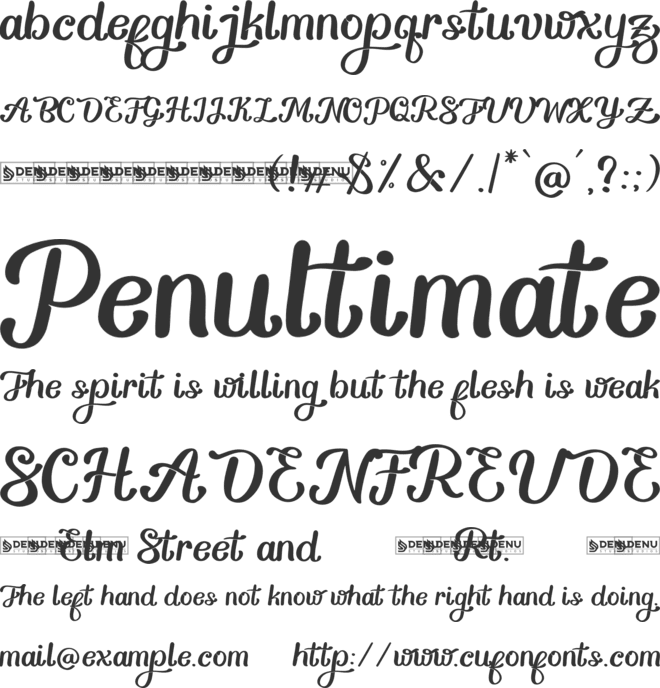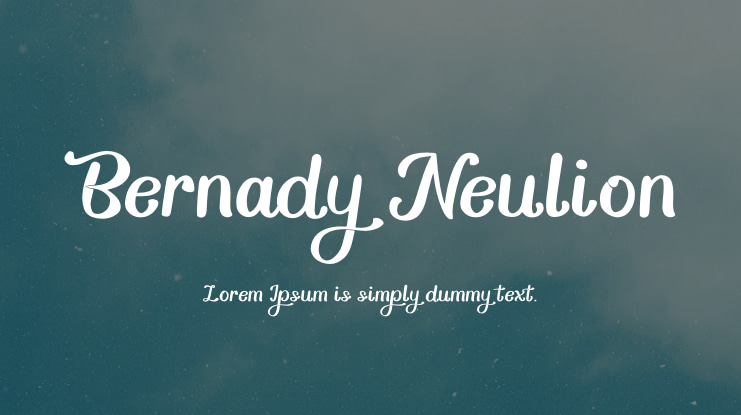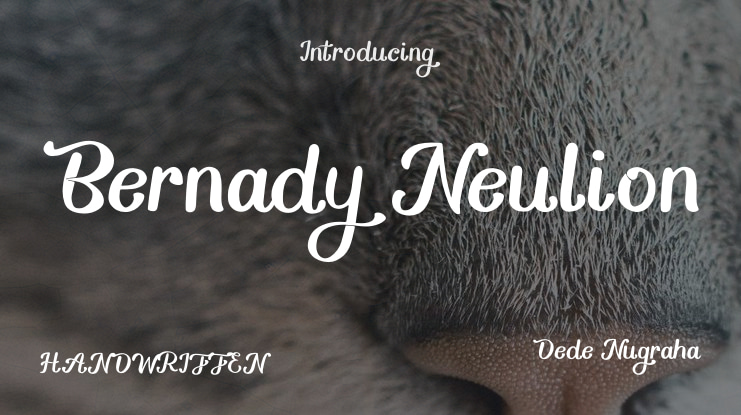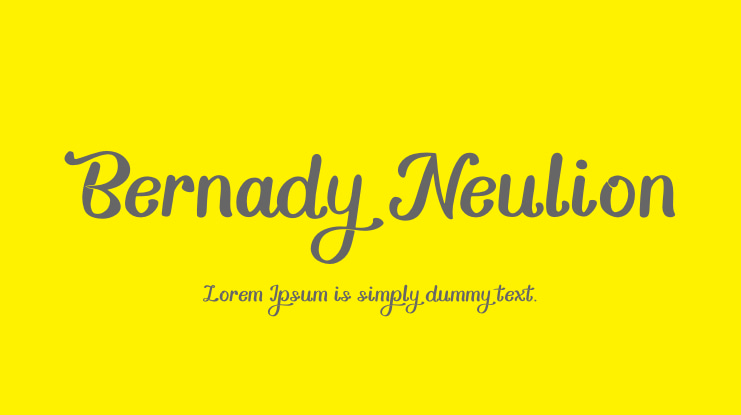
**Bernady Neulion | Handwritten Script Font**
The Bernady Neulion Handwritten Script Font is perfect for projects such as logos, branding, homeware designs, product packaging, mugs, quotes, posters, shopping bags, t-shirts, book covers, name cards, invitation cards, greeting cards, labels, photography, watermarks, special events, and many other creative projects that require a beautiful script touch.